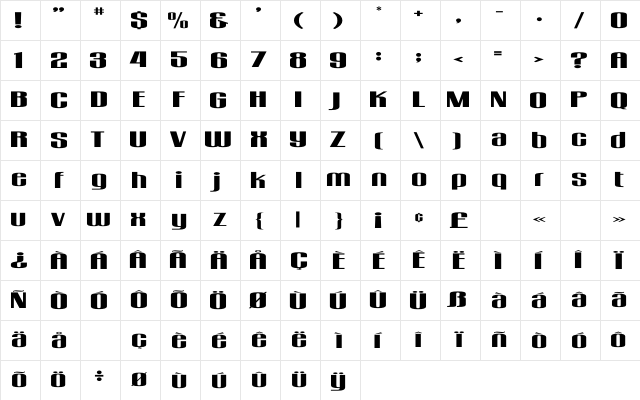
LHF Claretian Regular Free Font
LHF Claretian Regular
Foundry: Rob cooper for Lettehead Fonts
Designer: Rob Cooper for Letterhead Fonts
Design Context for LHF Claretian
LHF Claretian is a composed and adaptable typeface that performs quietly and consistently across a wide range of design contexts.